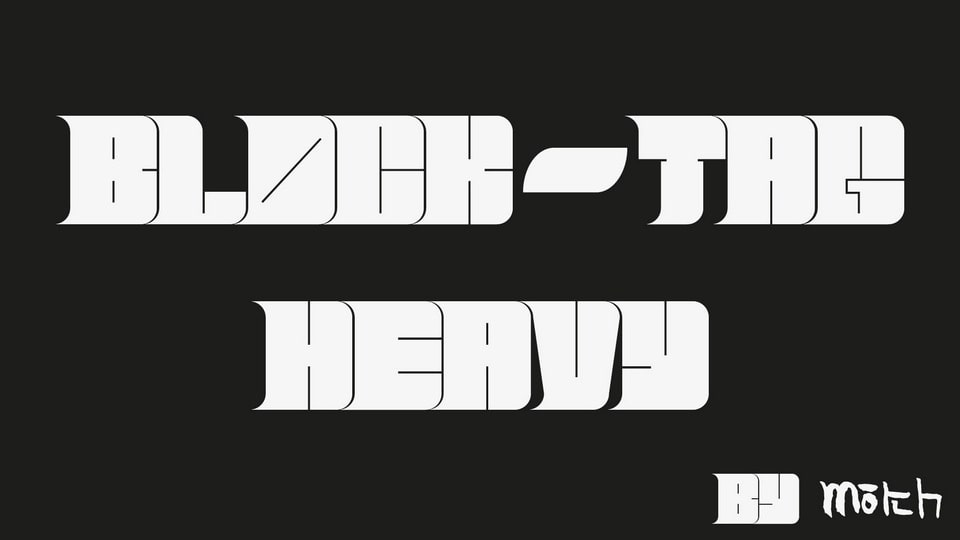
Download BlockTag Heavy font, a bold display typeface with sharp serifs that fit into the curved cap that precedes it. BlockTag Heavy font is inspired by graffiti tags, it is heavy and has a certain dynamism that makes the look slip when reading.